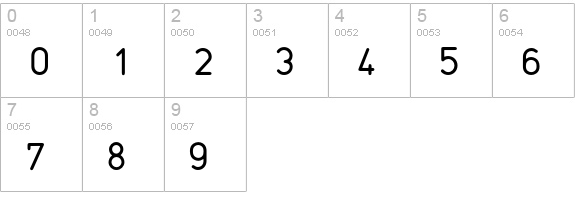
Din16-Normal Font Details
Din16-Normal is the standard, neutral variant in the Din16 typeface family \xE2\x80\x94 well suited to general body text, paragraphs, and standard typographic work.
Din16-Normal is a sleek and modern sans-serif font that exudes professionalism and sophistication. With its clean lines and balanced proportions, this font is versatile and ideal for a wide range of design projects. Whether you are creating a sleek corporate logo, elegant branding materials, or contemporary website design, Din16-Normal is sure to make a statement. The best part? Din16-Normal is available for free download at FontsMarket.com. You can easily access this stylish font and enhance your design projects without any hassle. Don't miss out on the opportunity to add Din16-Normal to your font collection and elevate your designs with its timeless appeal. Download now and start creating with this exceptional font!